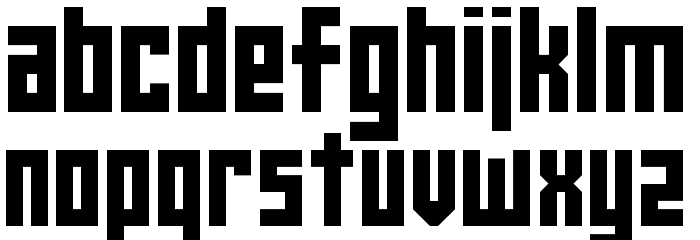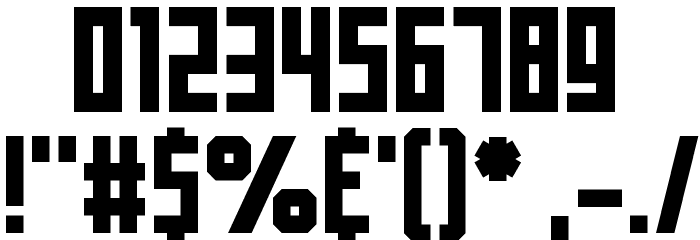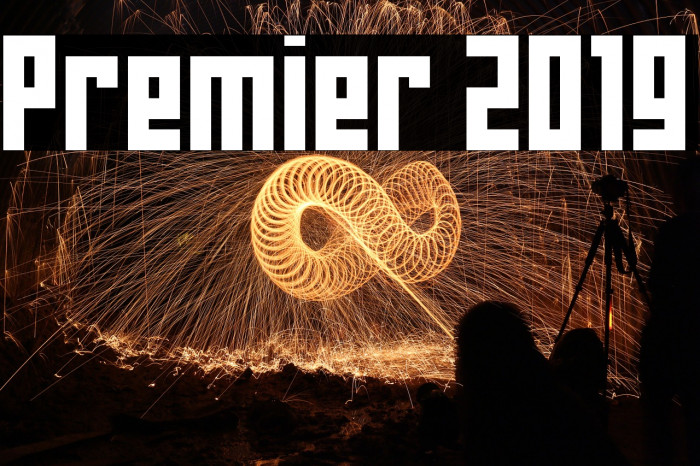
Premier 2019 Font
This font features a bold and geometric design with strong, angular lines and a solid presence. The uppercase and lowercase letters maintain a consistent blocky style, giving it a modern and industrial feel. The numbers and special characters follow the same robust design, ensuring uniformity across all glyphs. The font's thick strokes and sharp edges make it highly legible and impactful, suitable for attention-grabbing headlines or titles. Its uniform stroke width and lack of curves contribute to a clean and straightforward aesthetic.
- Proposed Projects: Ideal for posters, logos, branding materials, and any project requiring a strong visual impact.